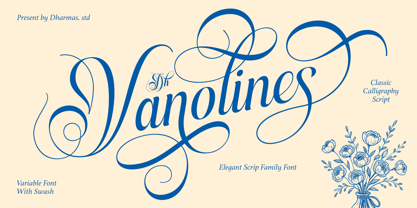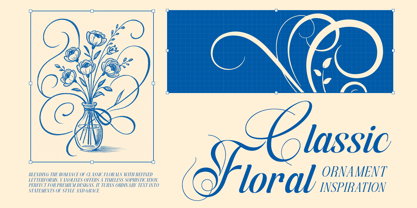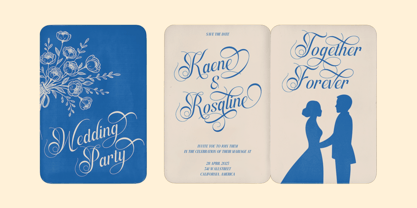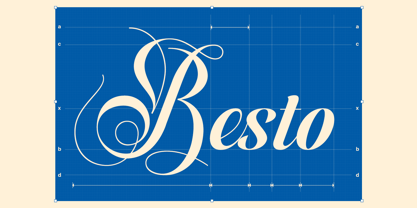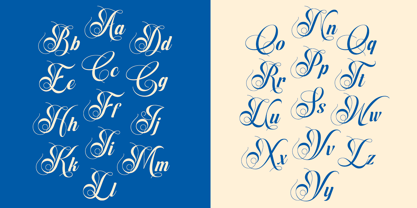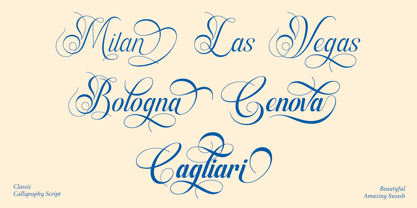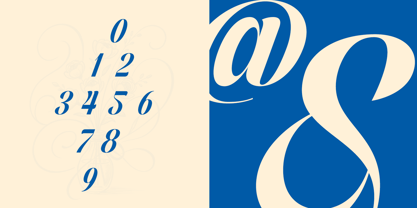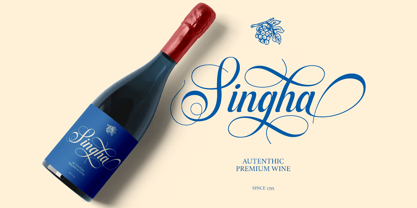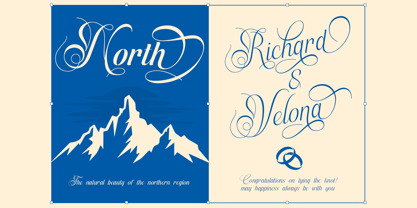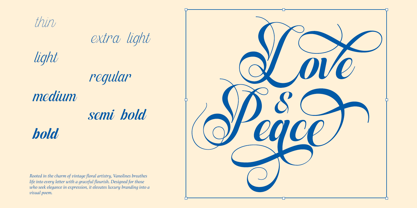
Dh Vanolines
Dh Vanolines – Elegant Flourished Calligraphy Script
Dh Vanolines is an exquisite calligraphy script font designed with timeless elegance and artistic flair. Its flowing curves and dramatic swashes bring a touch of romance and sophistication to every project.
Featuring 7 refined styles — Thin, Extra Light, Light, Regular, Medium, Semi Bold, and Bold — this typeface offers versatility for both delicate and bold expressions. It's ideal for wedding invitations, upscale branding, editorial headlines, and luxury packaging.
With over 160+ alternates and ligatures, Dh Vanolines empowers you to craft expressive, personalized typography. Combined with full OpenType features and multilingual support, this font gives you the creative tools to design with confidence and grace.
Dh Vanolines Font Features:
• Main Files and Variable versions
• 7 Weights: Thin, Extra Light, Light, Regular, Medium, Semi Bold, Bold
• 160+ Swash Alternates and Ligatures
• Letters, numbers, symbols, punctuation, special alternates